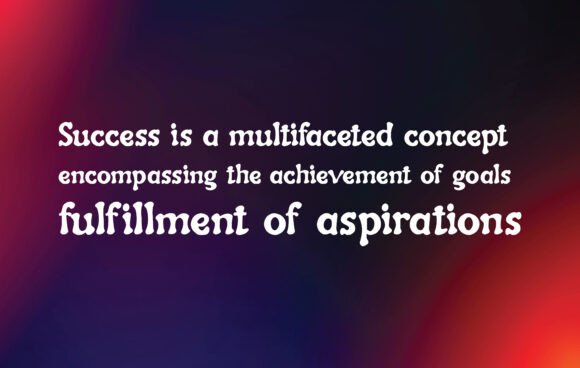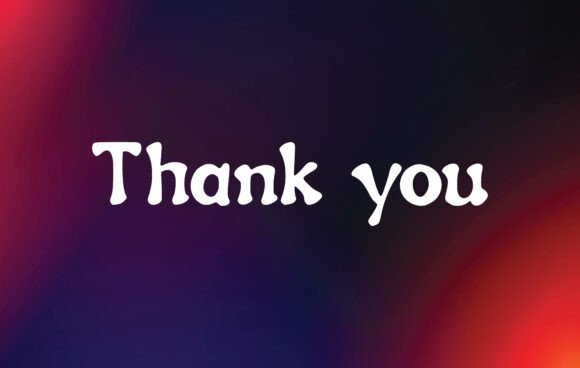
Introduction to Callen Font
Callen is a lovely and beautiful handwritten font.
Key Features of Callen Font
Why Choose Callen Font?
Callen Font offers exceptional quality and versatility, making it a valuable addition to your design toolkit. Whether you’re creating for personal projects or commercial use, Callen Font delivers professional results.